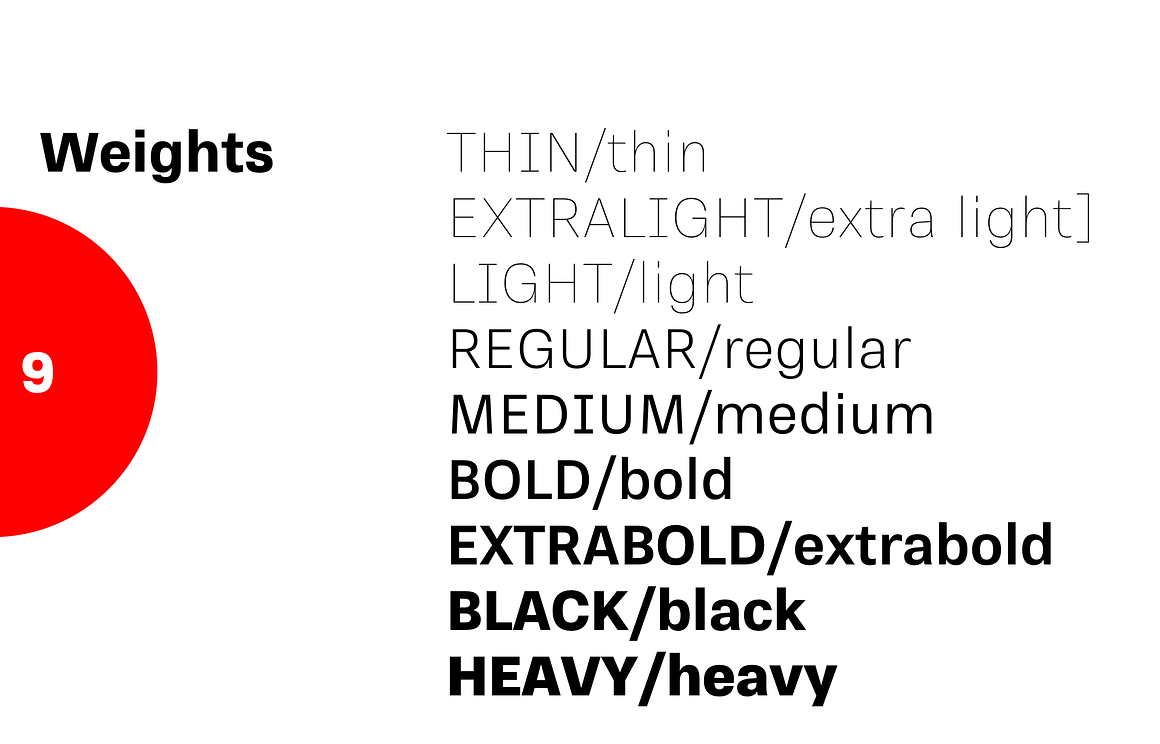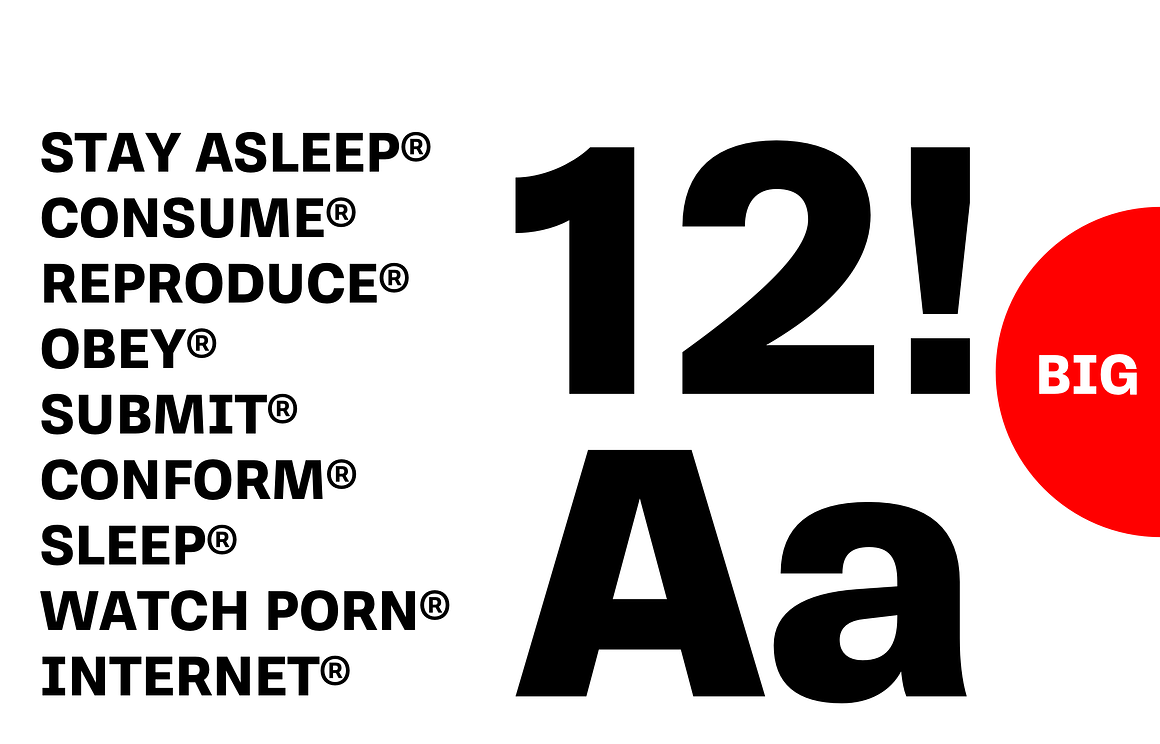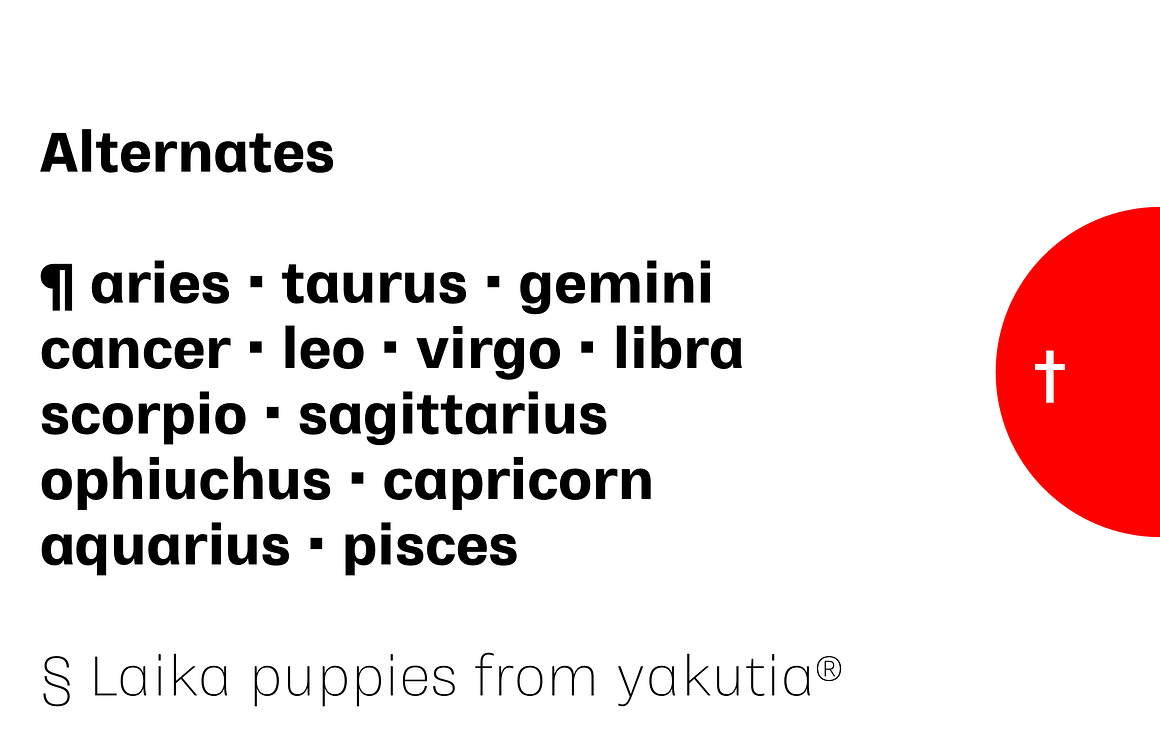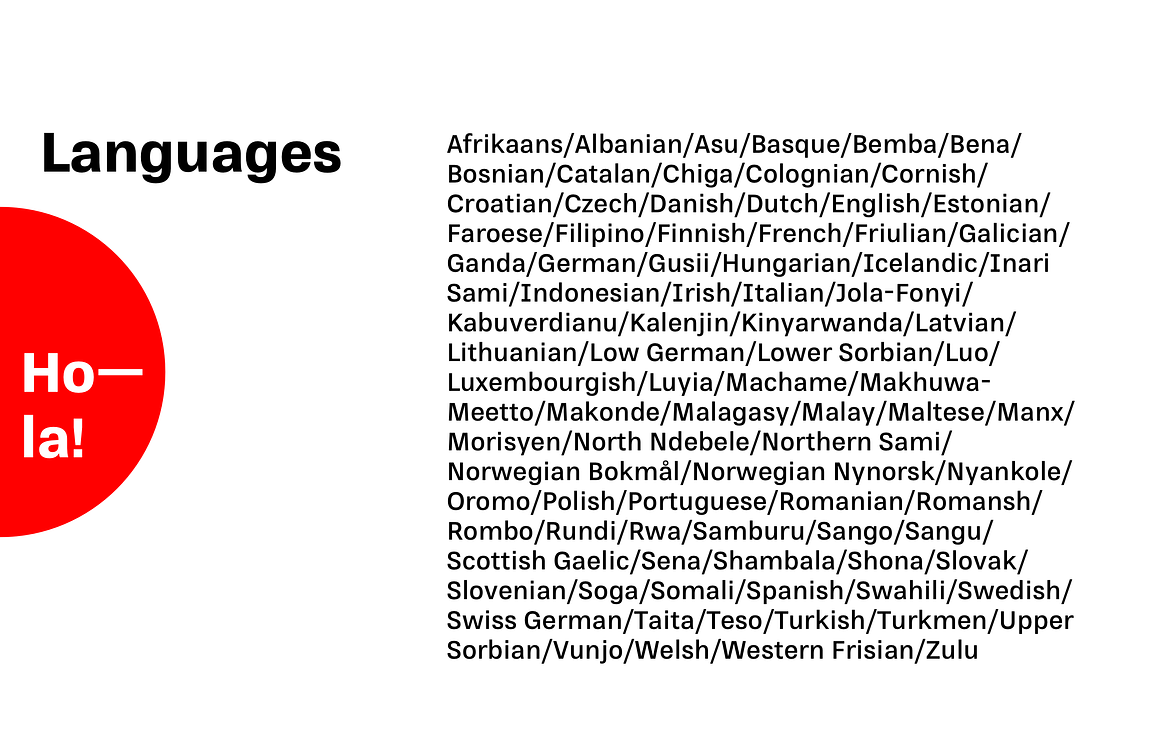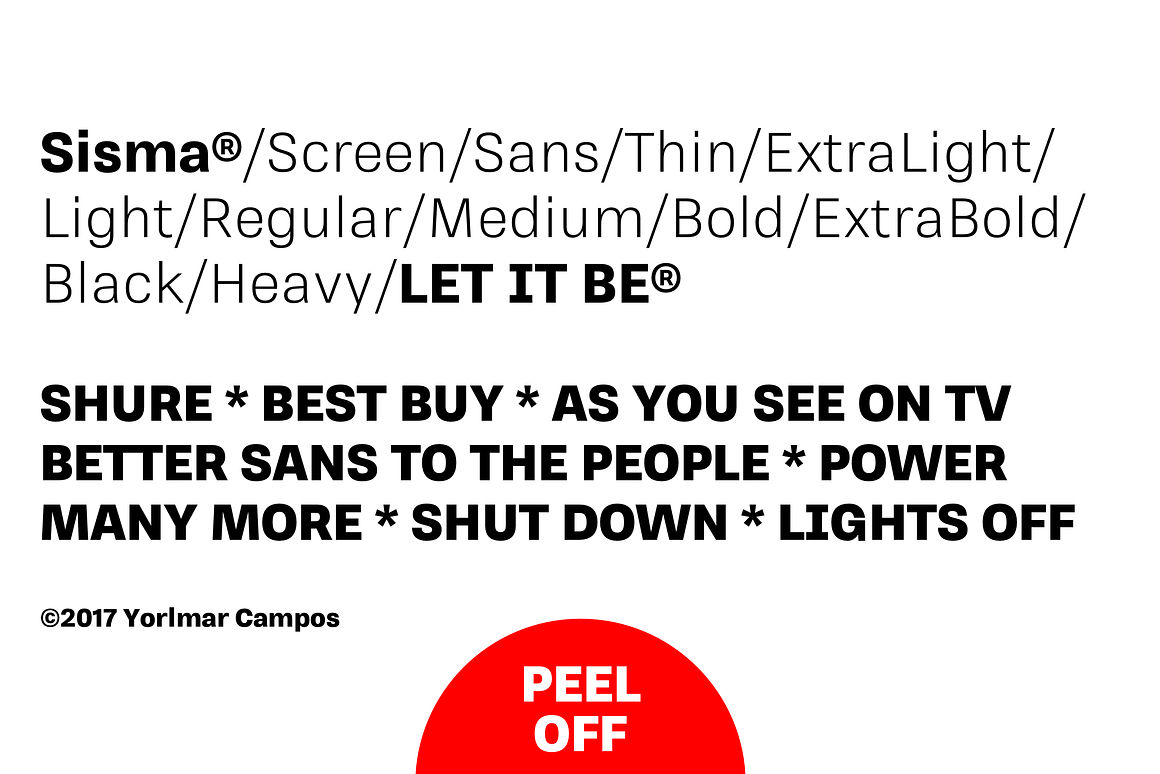
RNS Sisma Font
RNS Sisma Font is perfect for dynamic branding projects, modern logo design, contemporary web interfaces, innovative tech startups, creative marketing campaigns, forward-thinking presentations, cutting-edge app design, progressive corporate communications, trendy packaging solutions, and revolutionary digital platforms.
What makes RNS Sisma Font so exciting is its innovative design philosophy that pushes the boundaries of contemporary typography while maintaining exceptional functionality and readability. This groundbreaking typeface embodies creative disruption and technological advancement, delivering typography that speaks the language of innovation and modern sophistication.
The RNS Sisma Font family includes light, regular, medium, bold, and black weights, complete with italic variations and experimental design features that provide designers with comprehensive tools for creating distinctive and memorable typography solutions that define the future of design.
The innovatively crafted letterforms of RNS Sisma Font showcase experimental elegance with futuristic character that creates immediate visual impact and memorable brand recognition. Each character displays careful attention to maintaining the innovative spirit that defines progressive design while ensuring contemporary readability and professional versatility. The font's dynamic construction and forward-thinking spacing contribute to its revolutionary appearance and technological appeal.
Progressive brands and innovative companies consistently choose RNS Sisma Font for projects requiring cutting-edge aesthetics and technological sophistication. The comprehensive character set includes Latin extended glyphs, contemporary symbols, mathematical operators, and OpenType features that provide complete support for complex international projects and advanced typographic compositions.
The revolutionary nature of RNS Sisma Font ensures exceptional performance across all modern platforms and digital environments. Whether developing innovative brand identities, creating cutting-edge web experiences, or designing futuristic marketing materials, this remarkable typeface delivers the precision and visual impact that forward-thinking brands need to lead their industries.